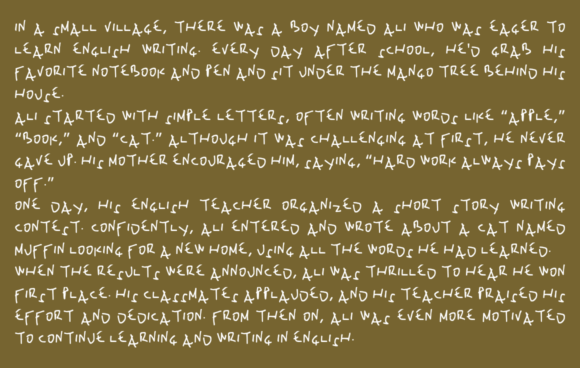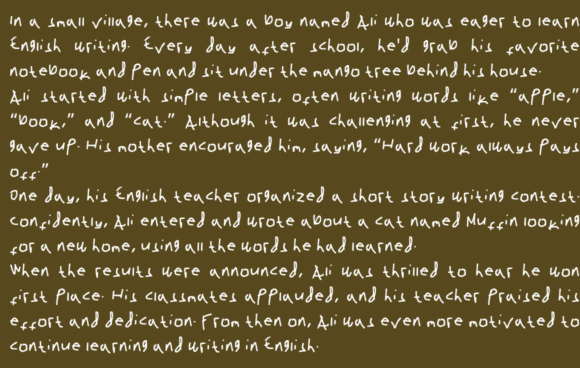
Introduction to Kids Handwriting Font
Do you remember the first time your child learned to write their name? The excitement, the curiosity, and the unbridled creativity that comes with it? As a parent, it’s a moment you’ll cherish forever, and as a designer, it’s a moment of pure inspiration. The Kids Handwriting Font is a beautiful tribute to this special time, capturing the essence of a child’s first attempts at writing in a font that’s both charming and high-quality.
For designers, the Kids Handwriting Font is a valuable resource, offering a unique and playful touch to any creative project. Whether you’re working on a children’s book, a nursery interior, or a learning material, this font is sure to bring a fresh and heartwarming aura to your design. Plus, with a transparent background, you can easily integrate it into your project without any hassle.
Key Features of Kids Handwriting Font
- Unique, high-quality design perfect for creative projects requiring a personal touch.
- Perfect for use in educational materials, children’s books, and other projects requiring a playful and creative touch.
Honest Review: Kids Handwriting Font
I recently had the chance to work with the Kids Handwriting Font and I must say it’s been a delightful addition to my design projects. This high quality font is perfect for creating a playful and creative atmosphere in my work.
One of the things that I appreciate about this font is its versatility. It’s great for use in children’s educational materials, party invitations, and even personal projects like scrapbooking and card making. The font is available as a free download, making it an excellent design resource for designers on a budget.
- High quality, smooth lines and subtle texture that gives it a unique, hand-drawn feel.
- Perfect for creating a whimsical, childlike atmosphere in my design projects.
However, I do have a few minor issues with this font:
- ⚠️ Limited character set – only includes uppercase and lowercase letters, with a few punctuation marks.
- ⚠️ Not suitable for use in professional, formal settings due to its playful and informal nature.
Overall, I’m really impressed with the Kids Handwriting Font and would highly recommend it to designers looking for a fun and creative project.
Common Use Cases for the Kids Handwriting Font
The Kids Handwriting Font is ideal for use in children’s educational materials, such as worksheets, coloring books, and activity sheets. It can also be used in creative projects, such as party invitations and decorations.